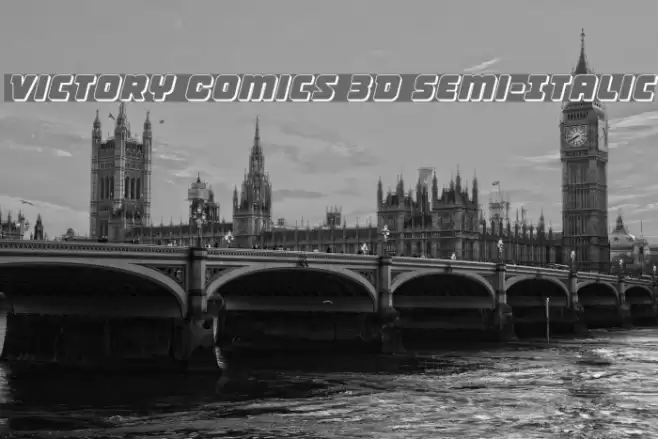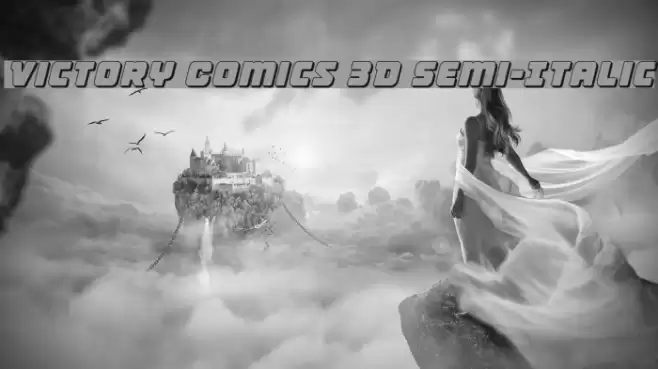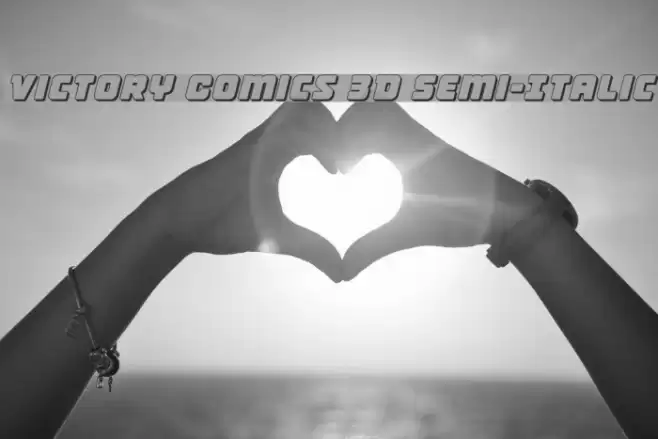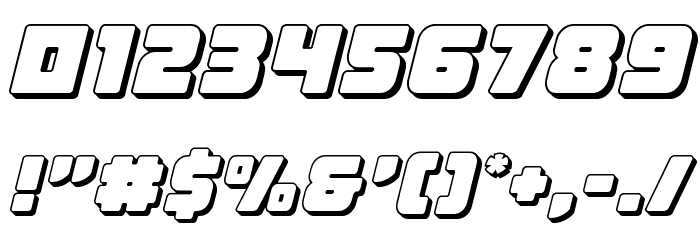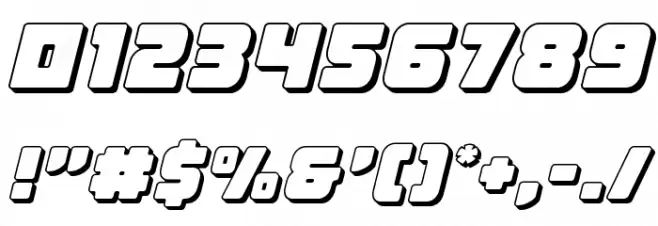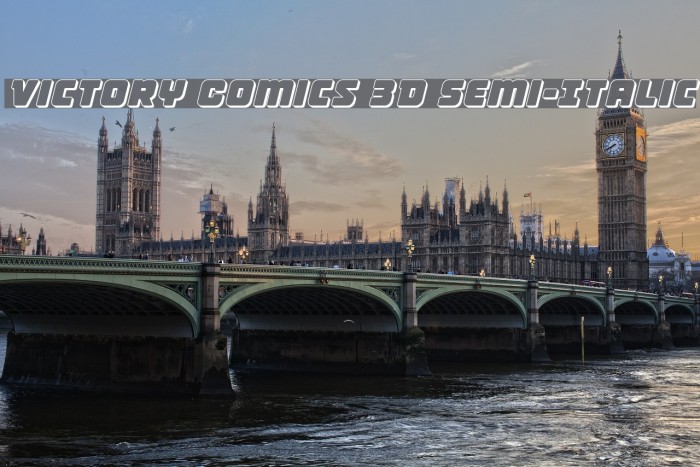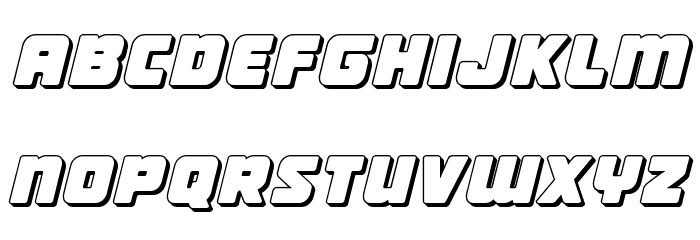
Victory Comics 3D Semi-Italic Font
Victory Comics 3D Semi-Italic Description
This font features a bold, three-dimensional appearance with a semi-italic slant, giving it a dynamic and energetic look. The characters are outlined, creating a comic-style effect that adds depth and playfulness. The uppercase and lowercase letters maintain a consistent style, with rounded edges and a slightly condensed form. The numbers and special characters follow the same design principles, ensuring uniformity across all glyphs. This font's unique style makes it stand out, ideal for projects that require a fun and engaging visual element.
A bold, 3D semi-italic font with a comic-style outline from Uncategorized fonts.
- Proposed Projects: Ideal for comic books, children's posters, playful branding, and video game graphics.